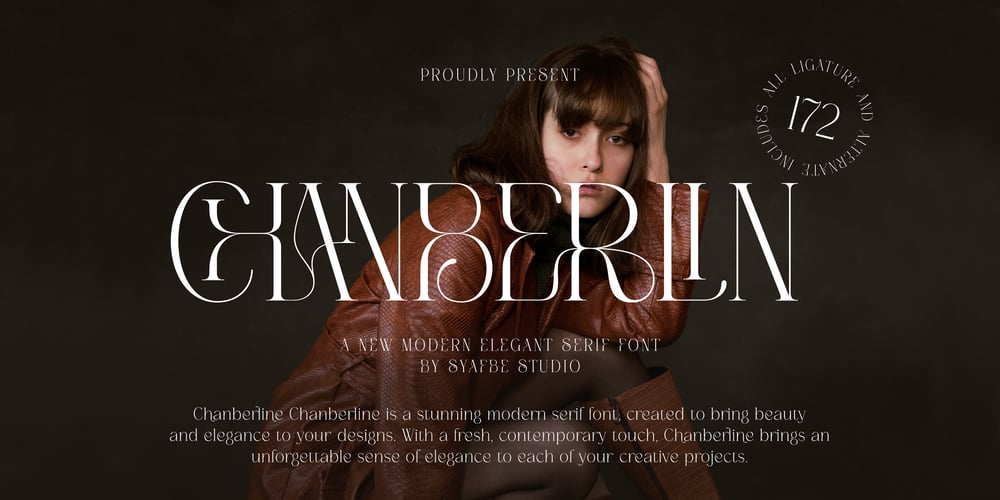
Chanberlin Font Family was designed by Syafwan Mus and published by Syafbe. Chanberlin contains 2 styles and family package options. Chanberline is a stunning modern serif font, created to bring beauty and elegance to your designs. With a fresh, contemporary touch, Chanberline brings an unforgettable sense of elegance to each of your creative projects.With a series of exclusively designed letters, each Chanberline character exudes an alluring elegance, making them perfect for branding, editorial designs and promotional materials looking to achieve a luxurious and modern feel. Each letter is designed with careful detail to ensure the clarity and beauty of your design.